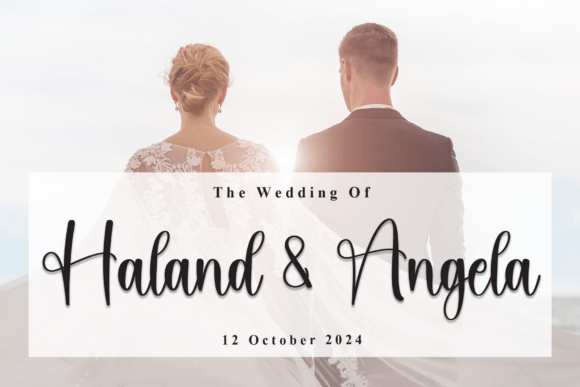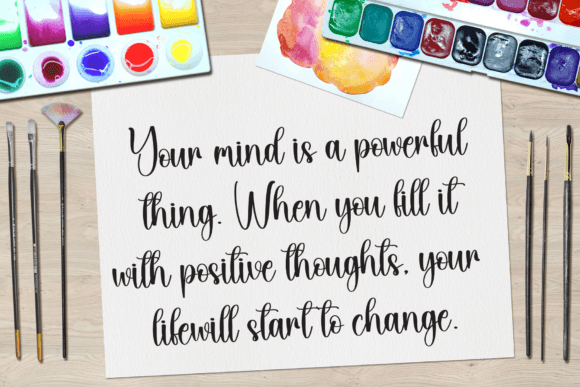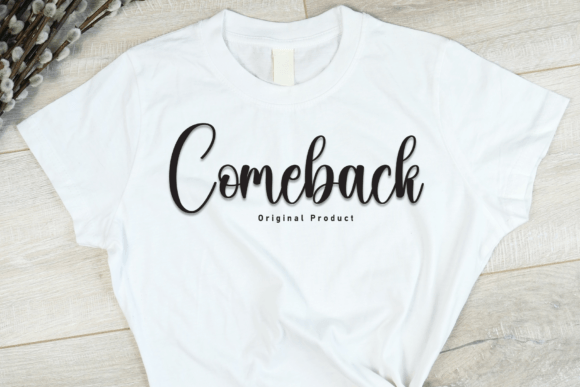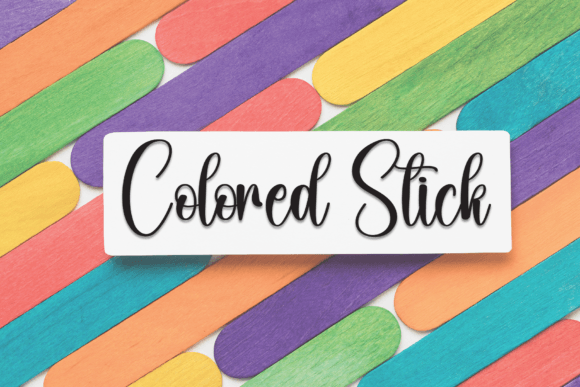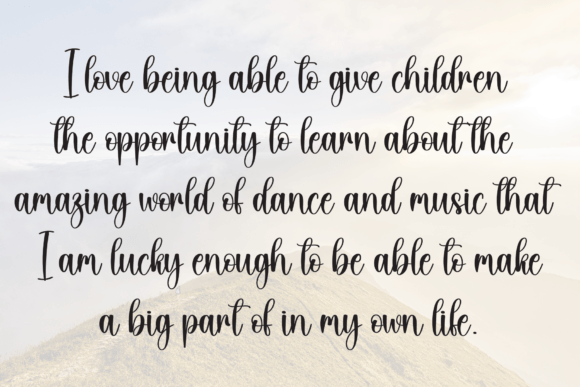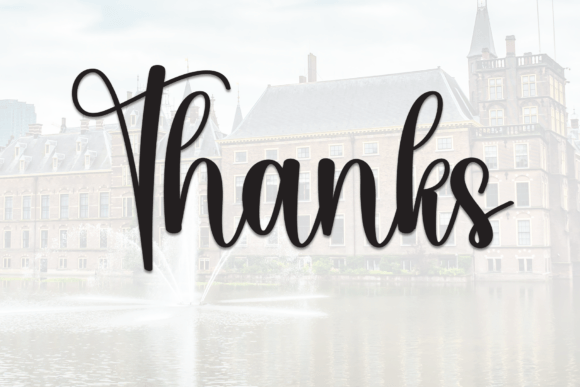
Discover the Charm of Amsterdam Font: Elevate Your Designs with a Timeless Handwritten Style
Are you on the lookout for a font that can add a touch of elegance and personality to your designs? Look no further than the Amsterdam Font, a lovely and timeless handwritten font that is perfect for creating eye-catching logos, branding, and quotes. With its unique and beautiful touch, this font is sure to make your design come alive!
Handwritten fonts have a way of adding a personal touch to any design. They evoke a sense of warmth, friendliness, and approachability that is hard to replicate with other font styles. Whether you’re designing a logo, creating a brand identity, or crafting a quote, a handwritten font can help you connect with your audience on a more emotional level.
The Amsterdam Font is a perfect example of a handwritten font that can elevate your designs to the next level. With its flowing lines, delicate curves, and charming imperfections, this font has a way of capturing the essence of handwriting in a digital format.
What Makes Amsterdam Font So Special?
So, what sets the Amsterdam Font apart from other handwritten fonts? Here are just a few features that make it a standout choice for designers and crafters:
- Unique Letterforms: Every letter in the Amsterdam Font has a unique and beautiful touch that sets it apart from other fonts. From the elegant curves of the uppercase letters to the playful flourishes of the lowercase letters, each character is carefully crafted to create a sense of personality and charm.
- Timeless Appeal: Unlike some fonts that can look dated or trendy, the Amsterdam Font has a timeless appeal that will never go out of style. Its classic handwritten look makes it perfect for creating designs that need to stand the test of time.
- Versatility: The Amsterdam Font is incredibly versatile, making it suitable for a wide range of design projects. Whether you’re creating a logo, a brochure, or a social media graphic, this font can help you achieve your design goals.
How to Use Amsterdam Font in Your Designs
Now that you know a little bit about the Amsterdam Font, let’s talk about how to use it in your designs. Here are a few tips to get you started:
- Pair it with Other Fonts: The Amsterdam Font pairs well with a variety of other fonts, from clean sans-serif fonts to elegant script fonts. Experiment with different font combinations to find the perfect look for your design.
- Use it for Headlines and Titles: The Amsterdam Font is perfect for creating eye-catching headlines and titles. Its bold, flowing lines make it easy to read and visually appealing.
- Add a Personal Touch: One of the best things about the Amsterdam Font is its personal touch. Use it to add a handwritten element to your designs, whether it’s a logo, a quote, or a message.
Why Designers and Crafters Love Amsterdam Font
Designers and crafters love the Amsterdam Font for a variety of reasons. Here are just a few:
- High-Quality Design: The font is designed to high standards, with careful attention to detail and a focus on legibility.
- Unique Style: The Amsterdam Font has a unique style that sets it apart from other fonts. Its elegant, cursive lines make it perfect for creating sophisticated designs.